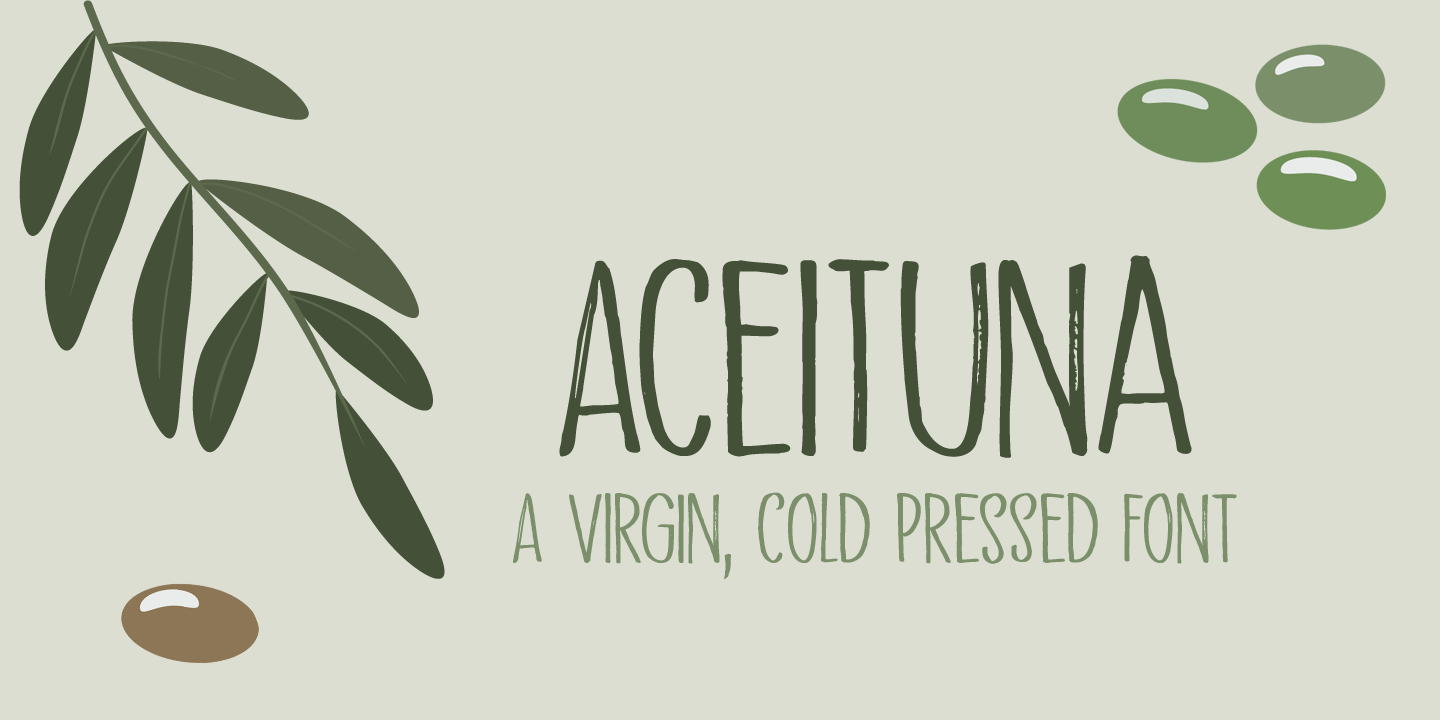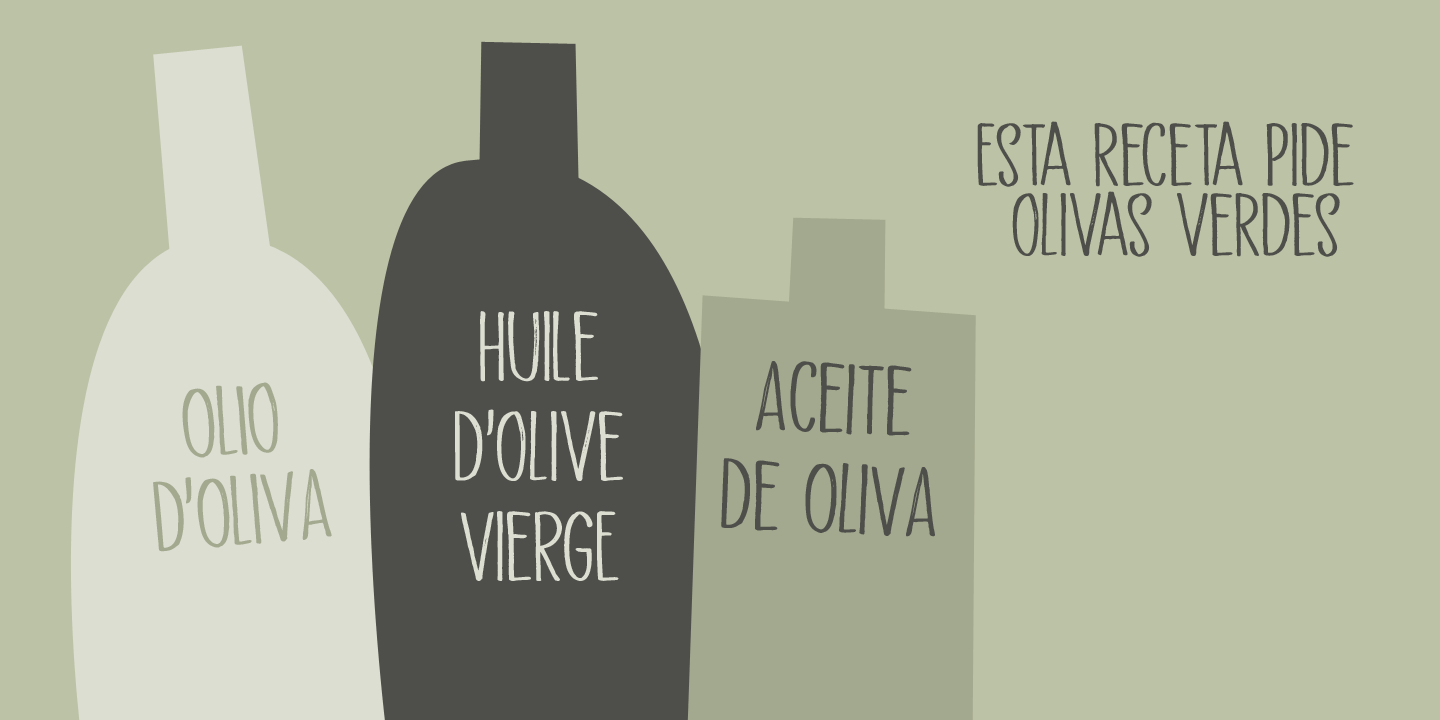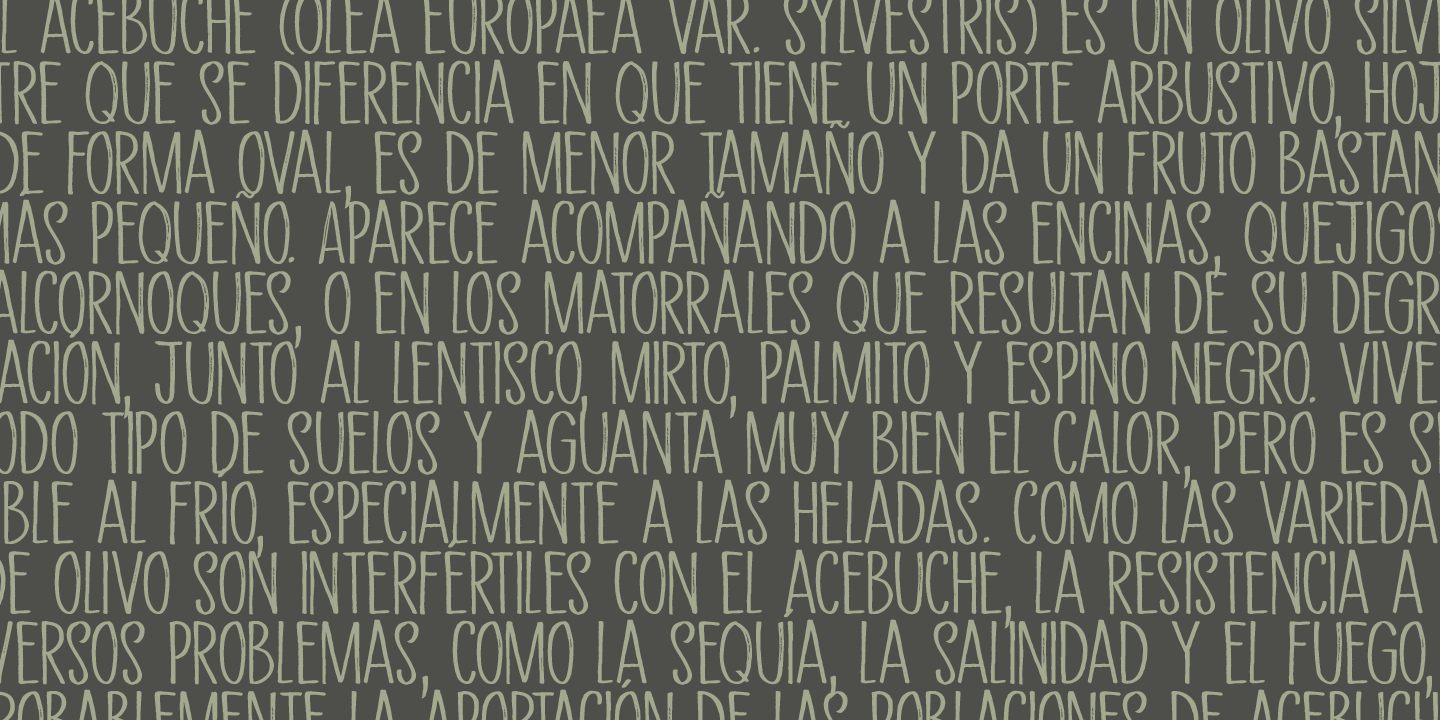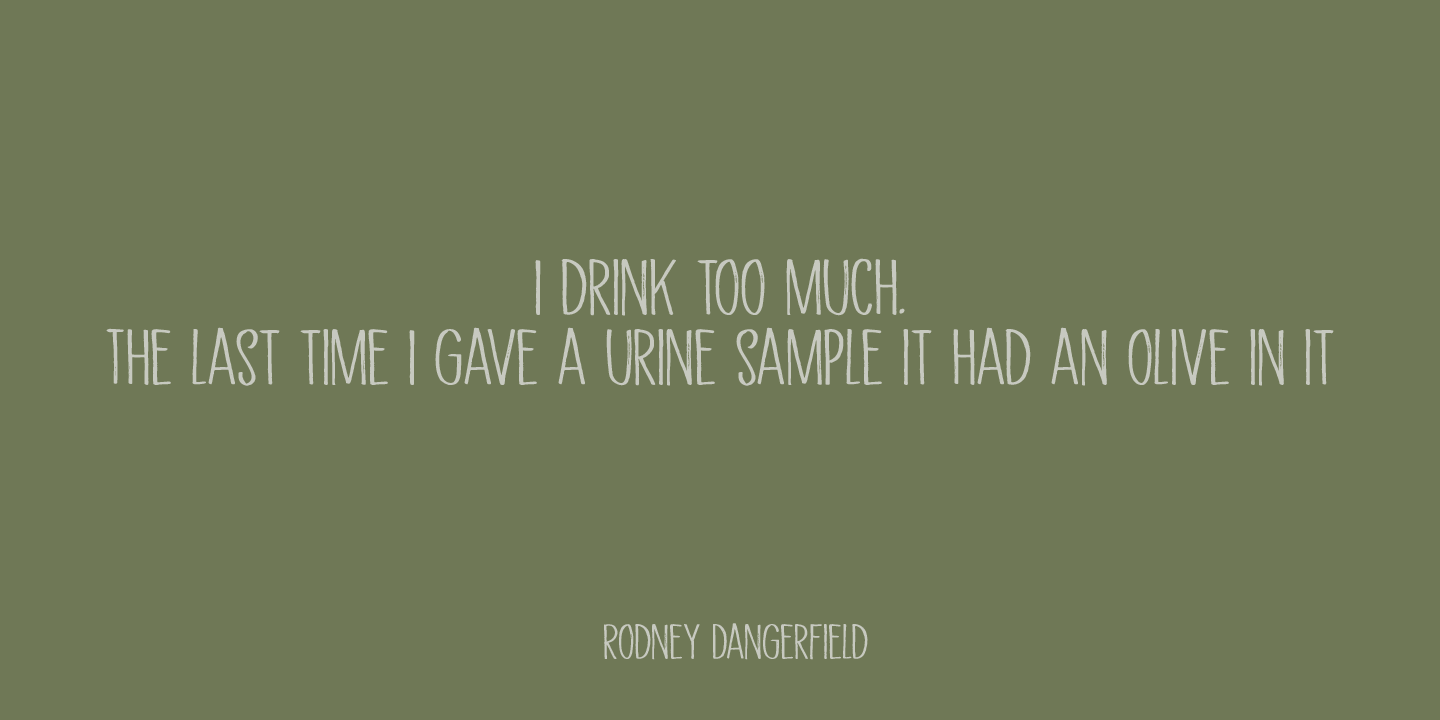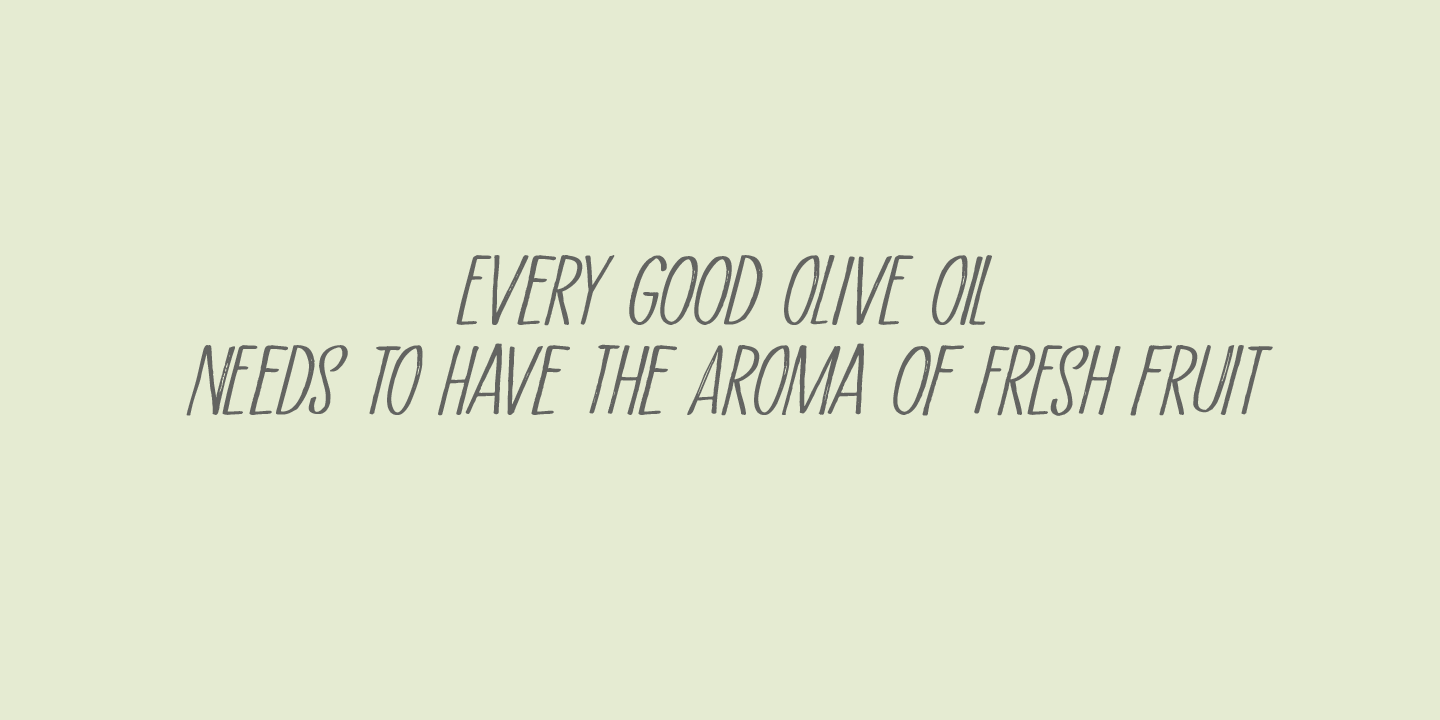
Aceituna
Aceituna means ?olive? in Spanish. It comes from the Arabic Al-Zeitoun. I am multi-tasking today: finishing this font and thinking about what to cook for my family tonight (yes, I am the one who cooks!). We normally eat Asian food, but I was toying with the idea of serving something Mediterranean and realised we had run out of olives. So there you have it: the super simple trick of naming a new font!
But enough of cooking: Aceituna font was made with a Japanese brush pen. It is a very versatile font: tall and thin, elegant and a little messy. A hint of texture and, like olives, it goes with almost anything.